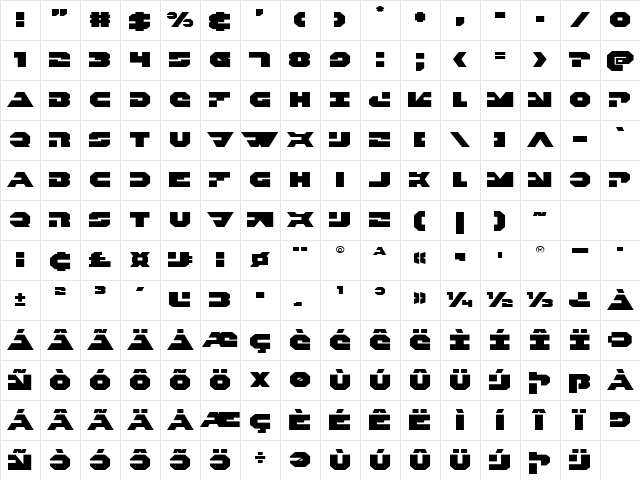
Complete Trigger Man Expanded glyph index. Displaying only characters natively supported by Trigger Man Expanded font.
Trigger Man Expanded is a composed and adaptable typeface that performs quietly and consistently across a wide range of design contexts.